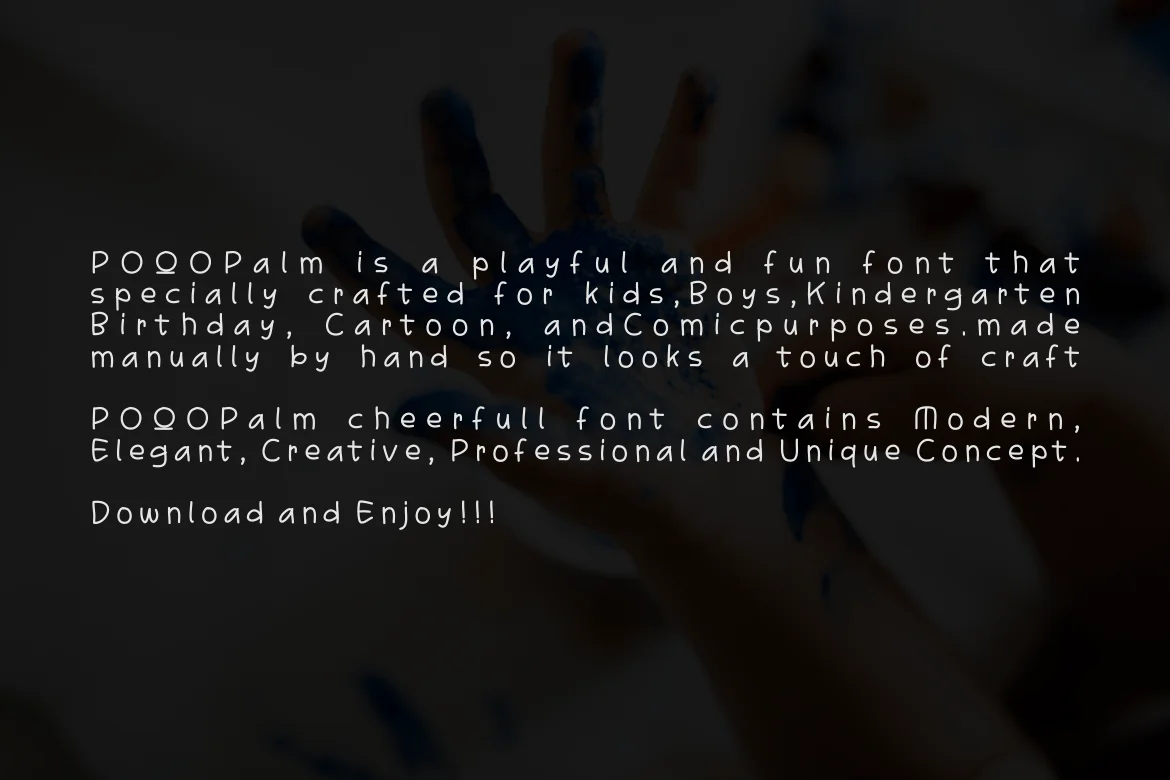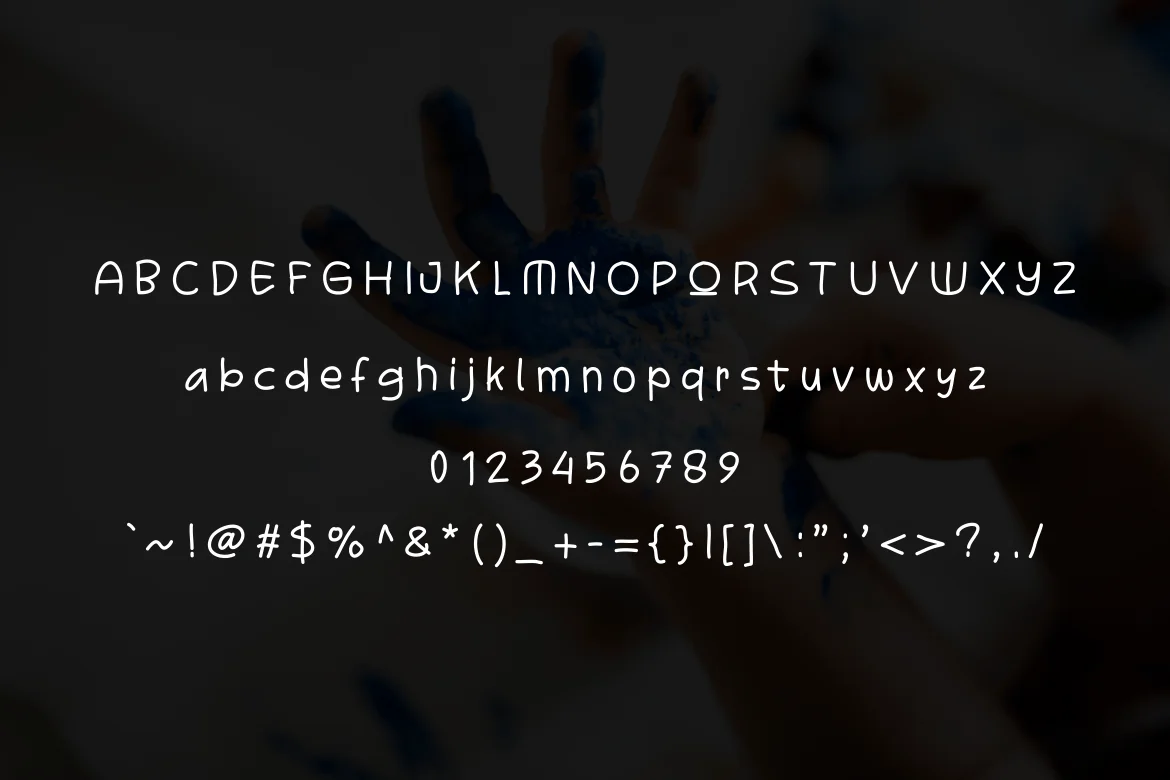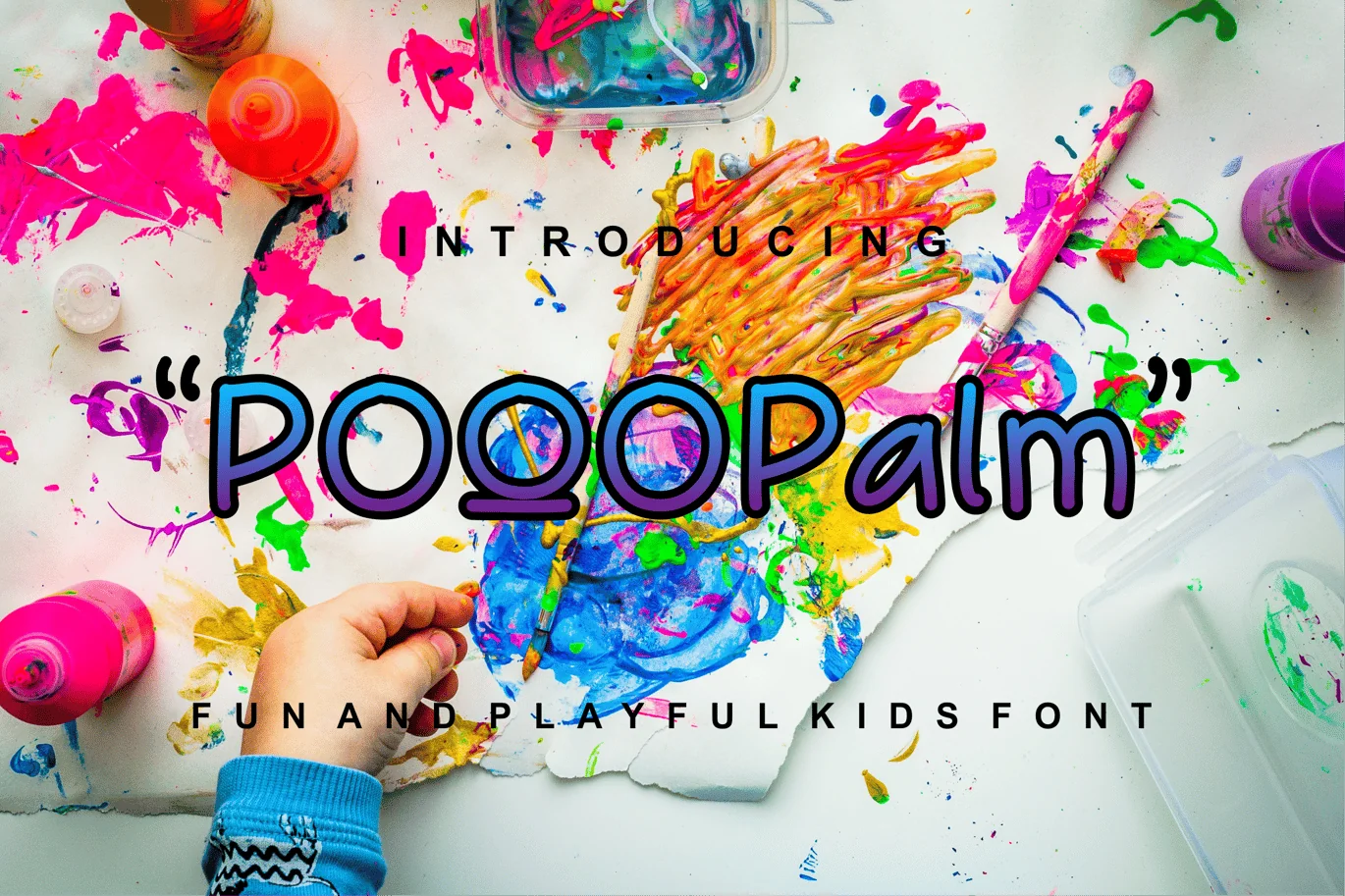
POQOPalm Font
POQOPalm is a playful and fun font that specially crafted for kids,Boys,Kindergarten
Birthday, Cartoon, andComicpurposes.made manually by hand so it looks a touch of craft
POQOPalm cheerfull font contains Modern, Elegant, Creative, Professional and Unique Concept.
- UPPERCASE & LOWERCASE